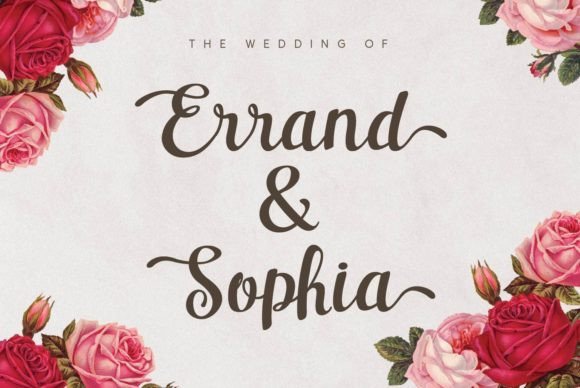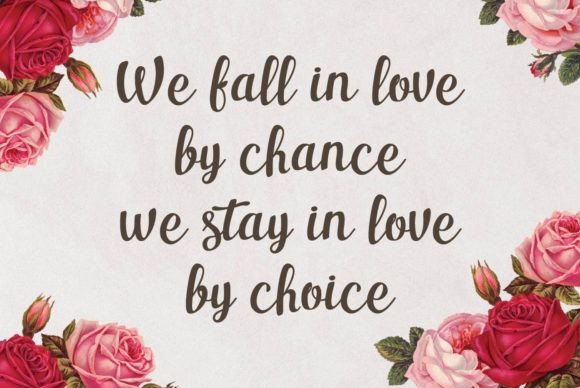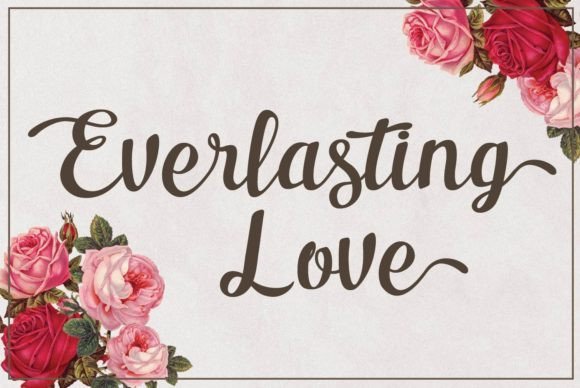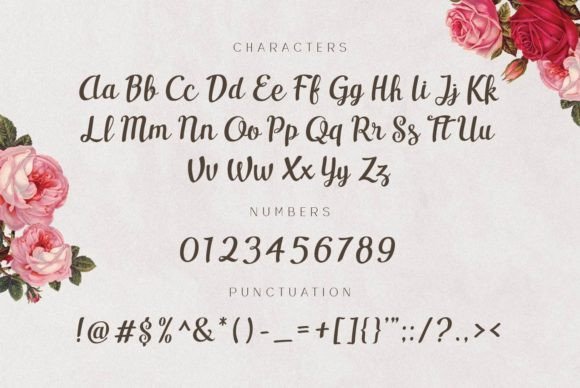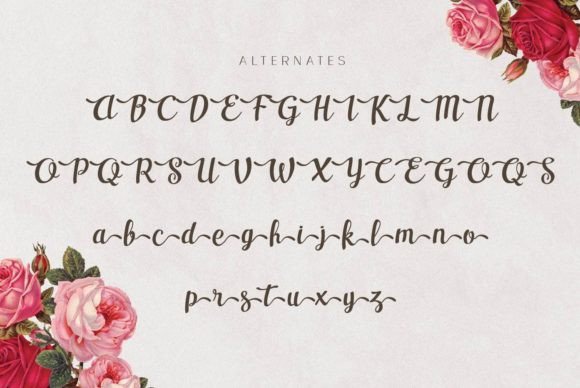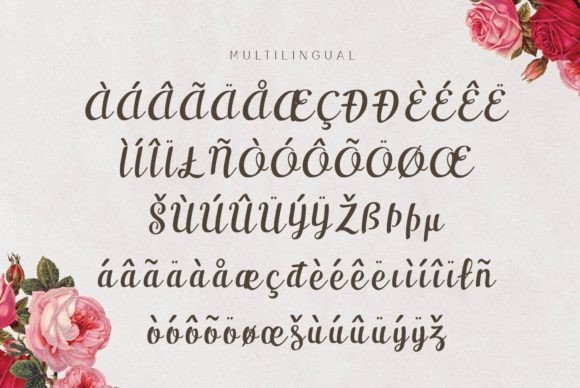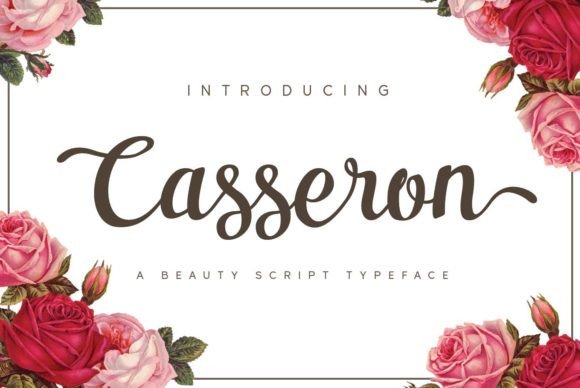
Casseron Font: Elevate Your Crafty Projects with Authentic Typography
In the world of design, typography plays a crucial role in conveying the tone and personality of a project. For crafty endeavors that require a touch of elegance and authenticity, the Casseron font is an excellent choice. This delicate and well-rounded handwritten font is perfect for adding a personal touch to various designs, making it a versatile and valuable addition to any designer’s toolkit.
The Characteristics of Casseron Font
Casseron is a beautifully crafted handwritten font that exudes a sense of refinement and sophistication. Its delicate strokes and well-rounded letterforms create a soft, yet elegant appearance that is sure to capture the attention of your audience. The font’s classic and timeless feel makes it suitable for a wide range of applications, from traditional wedding invitations to modern personal branding projects.
Perfect for Crafty Projects
Casseron is specifically designed for crafty projects that require authentic typography. Whether you’re creating wedding invitations, birthday cards, or other paper crafts, this font is sure to add a touch of elegance and sophistication to your designs. Its versatility also makes it an excellent choice for designers who work on various projects, from digital designs to print materials.
Use Cases for Casseron Font
The Casseron font can be used in a variety of creative projects, including:
- Wedding Invitations: Add a touch of romance and elegance to your wedding invitations with Casseron. Its classic feel and delicate strokes make it perfect for formal and informal wedding stationery.
- Birthday Cards: Create personalized and heartfelt birthday cards with Casseron. The font’s playful yet sophisticated appearance makes it suitable for kids’ and adults’ birthday cards alike.
- Personal Branding: Establish a strong brand identity with Casseron. Use it for logo designs, business cards, and other marketing materials to create a cohesive and professional look.
- Elegant Logos: Create stunning logos for your clients or your own business with Casseron. The font’s unique and elegant appearance makes it perfect for logos that require a touch of sophistication.
Why Choose Casseron Font?
With so many fonts available, why choose Casseron for your crafty projects? Here are a few compelling reasons:
- Authentic Typography: Casseron offers authentic typography that adds a personal touch to your designs. Its handmade feel makes it perfect for crafty projects that require a unique and human touch.
- Versatility: Casseron is a versatile font that can be used in various projects, from traditional paper crafts to modern digital designs.
- Elegance: The font’s delicate strokes and well-rounded letterforms create an elegant appearance that is sure to elevate your designs.
Tips for Using Casseron Font
To get the most out of Casseron, here are a few tips to keep in mind:
- Pair it with Other Fonts: Experiment with pairing Casseron with other fonts to create a unique and visually appealing design.
- Use it for Headings and Titles: Casseron’s elegant appearance makes it perfect for headings and titles. Use it to add a touch of sophistication to your designs.
- Experiment with Colors: Casseron looks great in various colors. Experiment with different colors to find the perfect match for your design.
In conclusion, Casseron is a beautiful and versatile handwritten font that is perfect for crafty projects that require authentic typography. Its delicate strokes, well-rounded letterforms, and elegant appearance make it suitable for a wide range of applications, from wedding invitations to personal branding projects. With its versatility, elegance, and authentic feel, Casseron is an excellent addition to any designer’s toolkit.